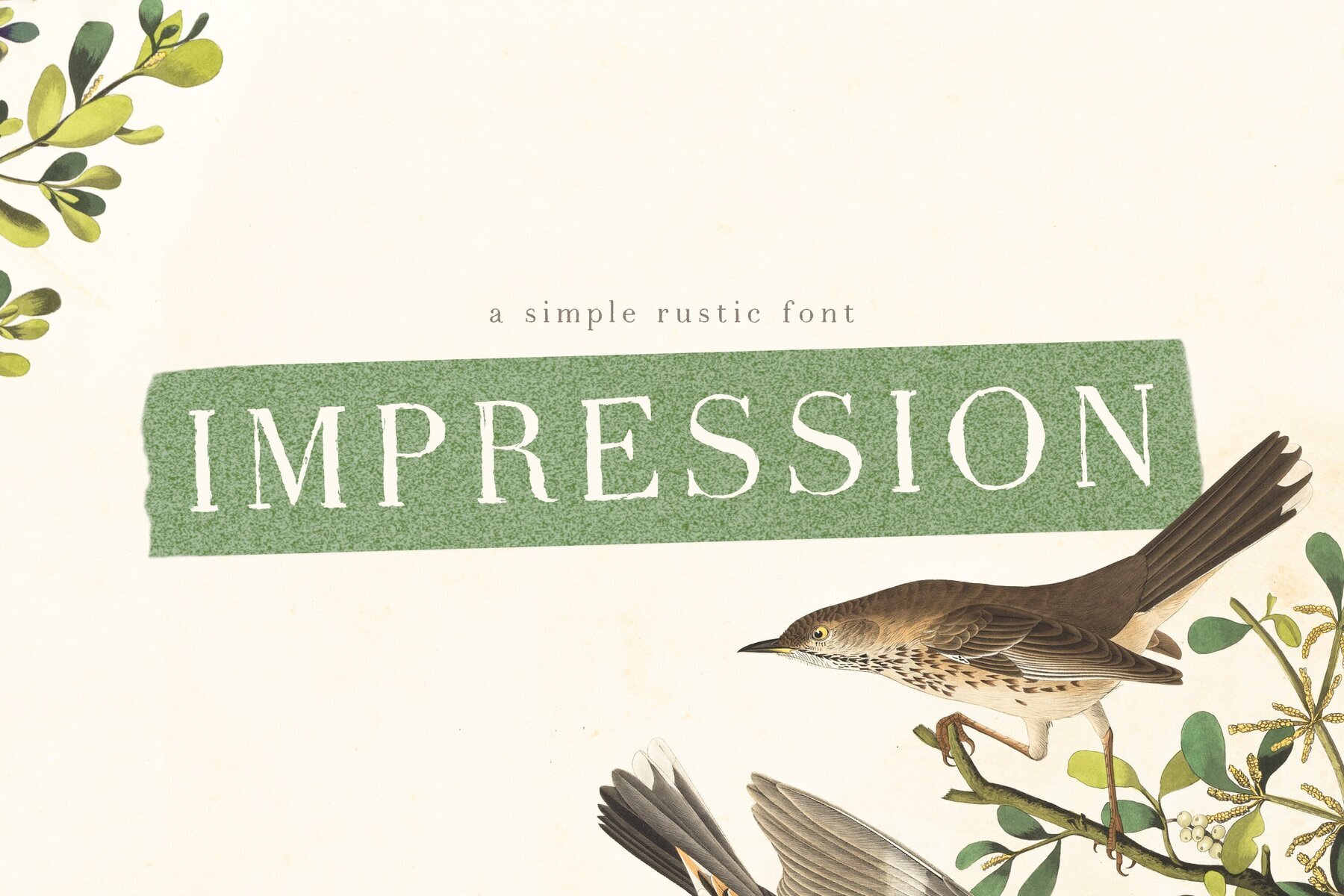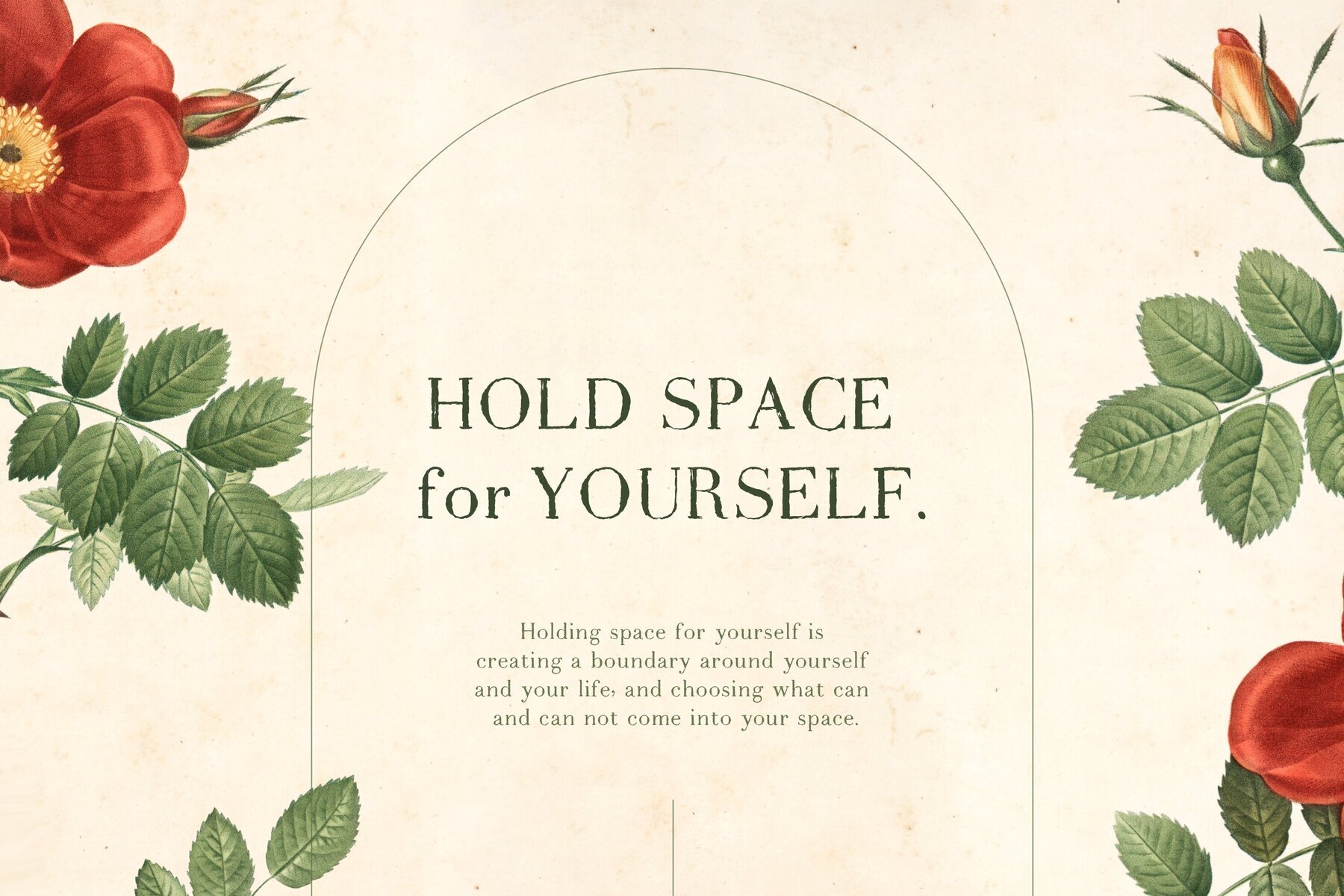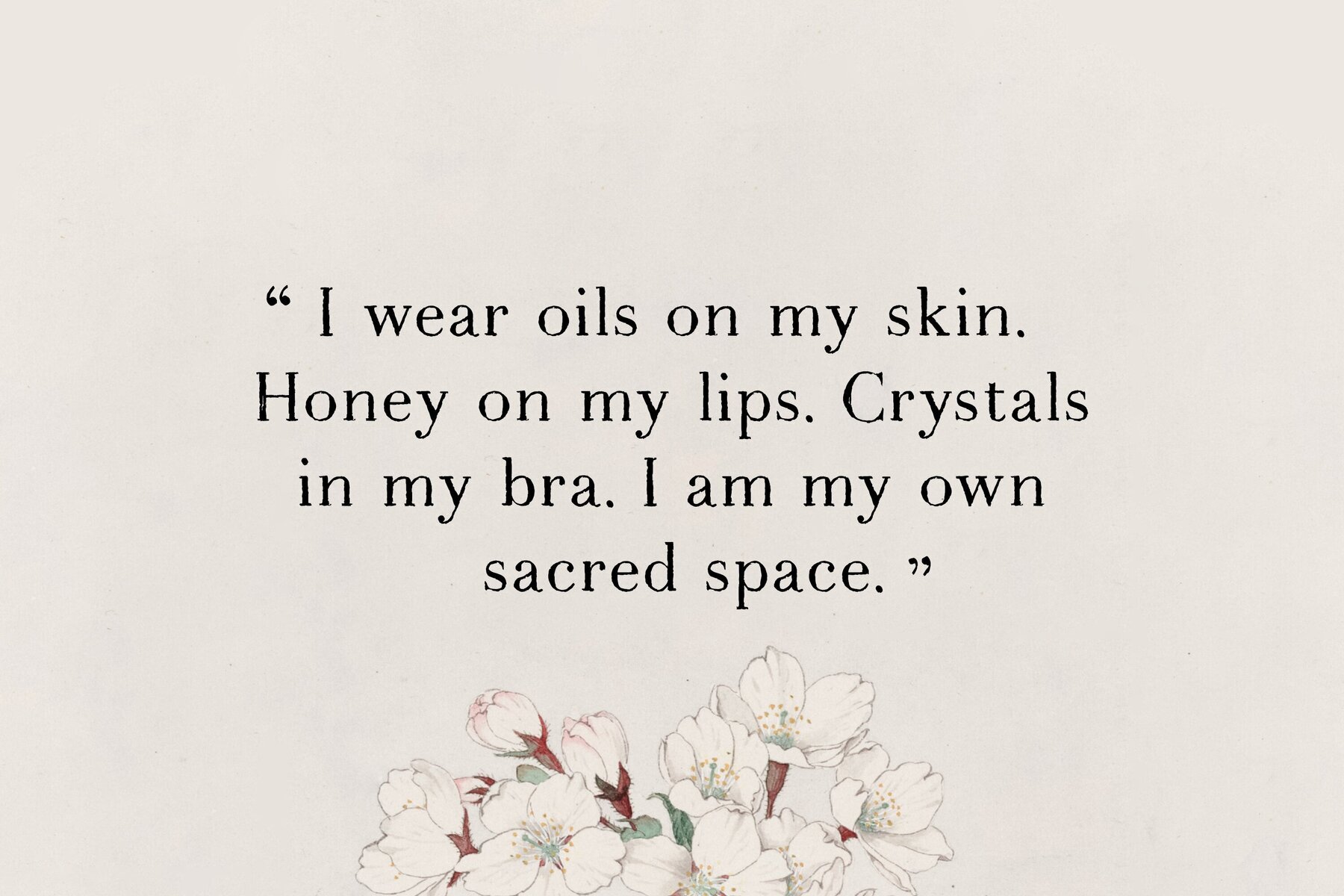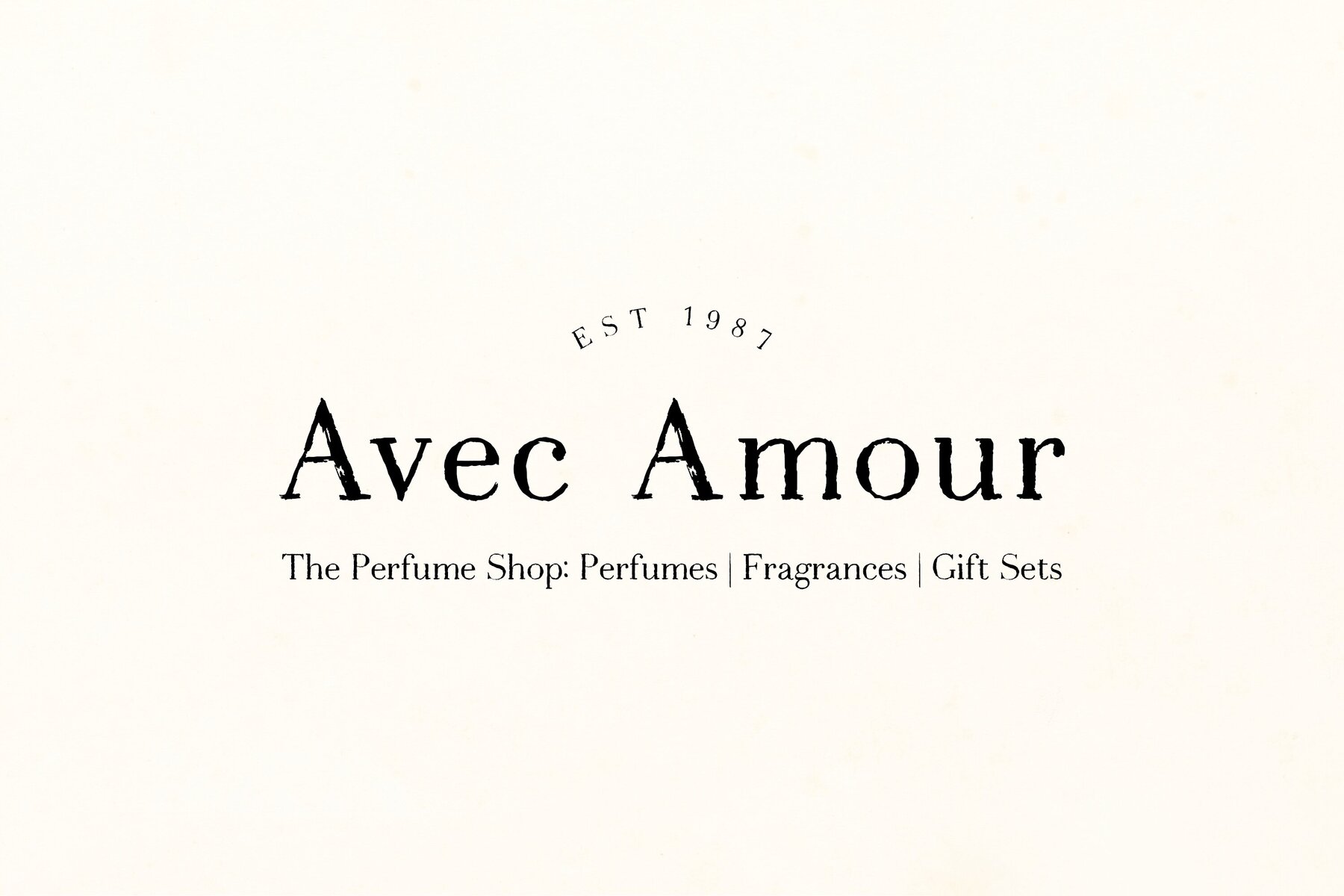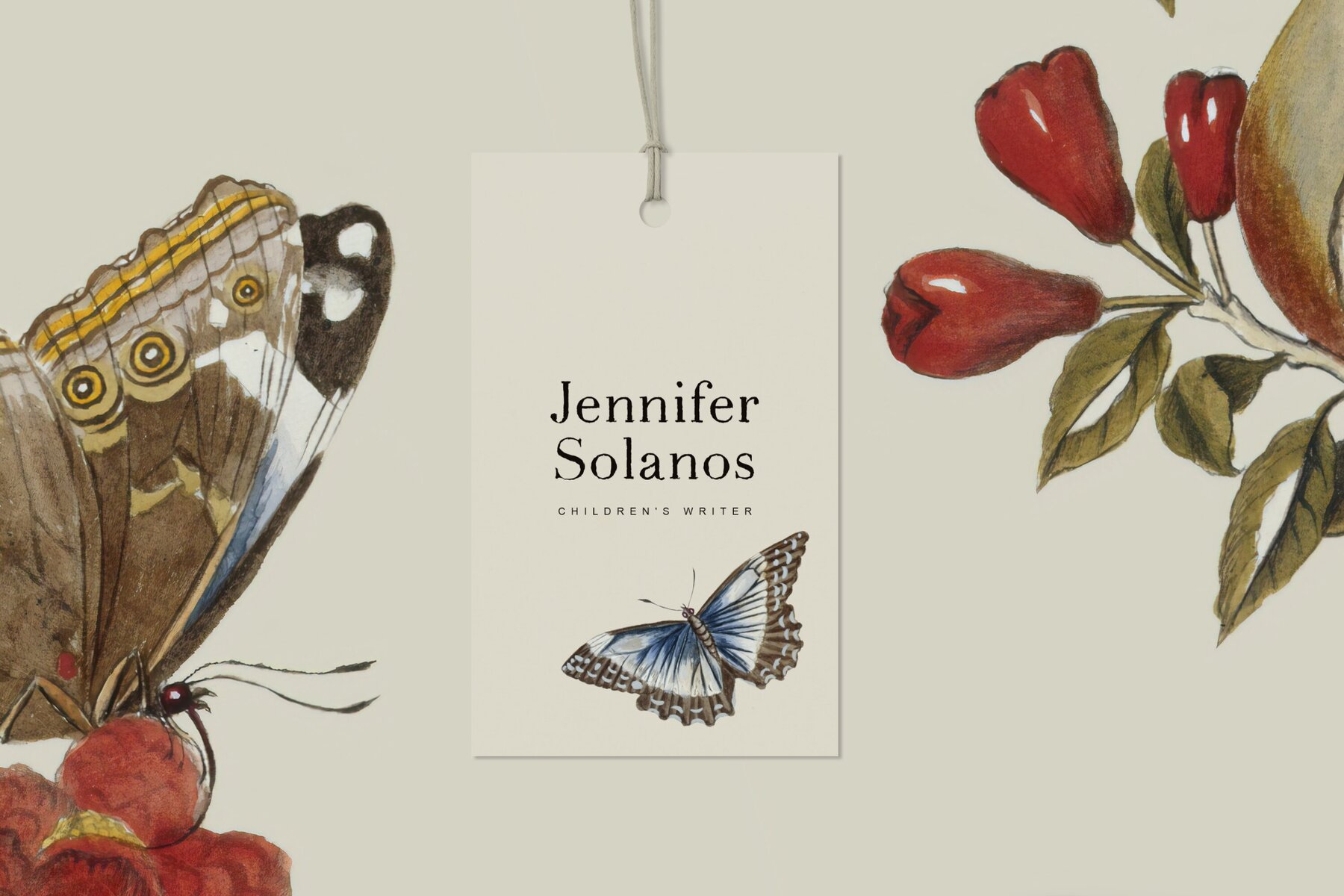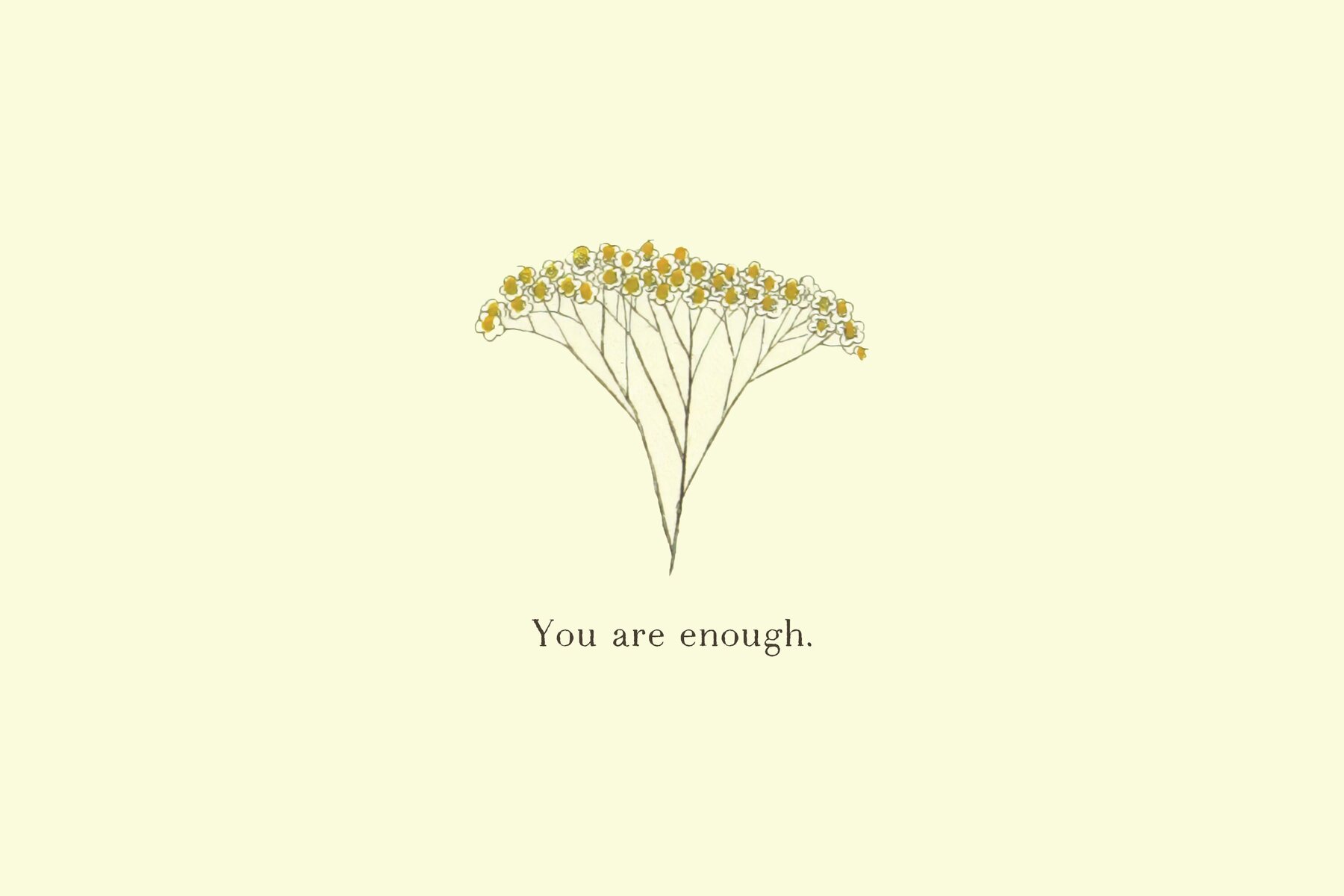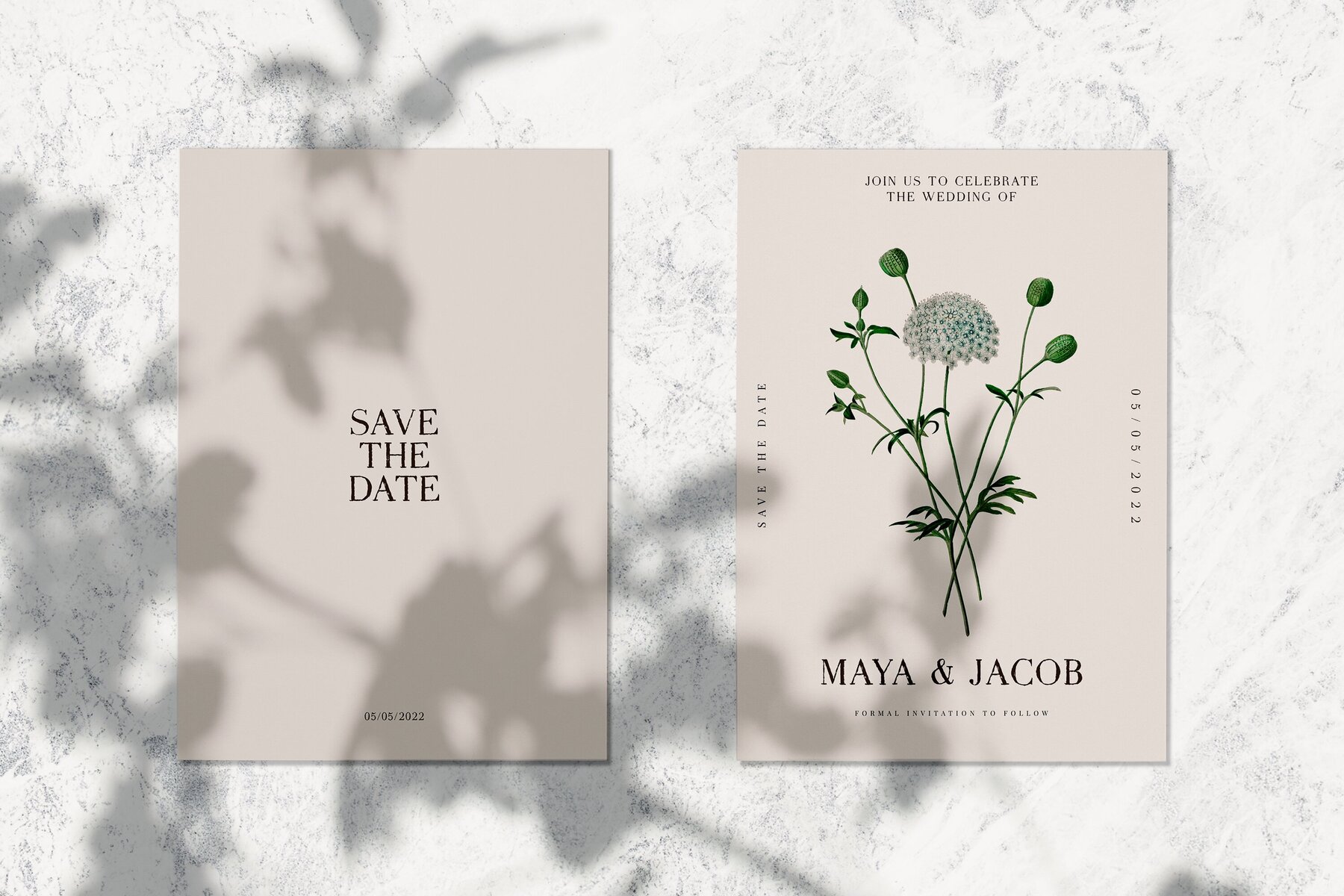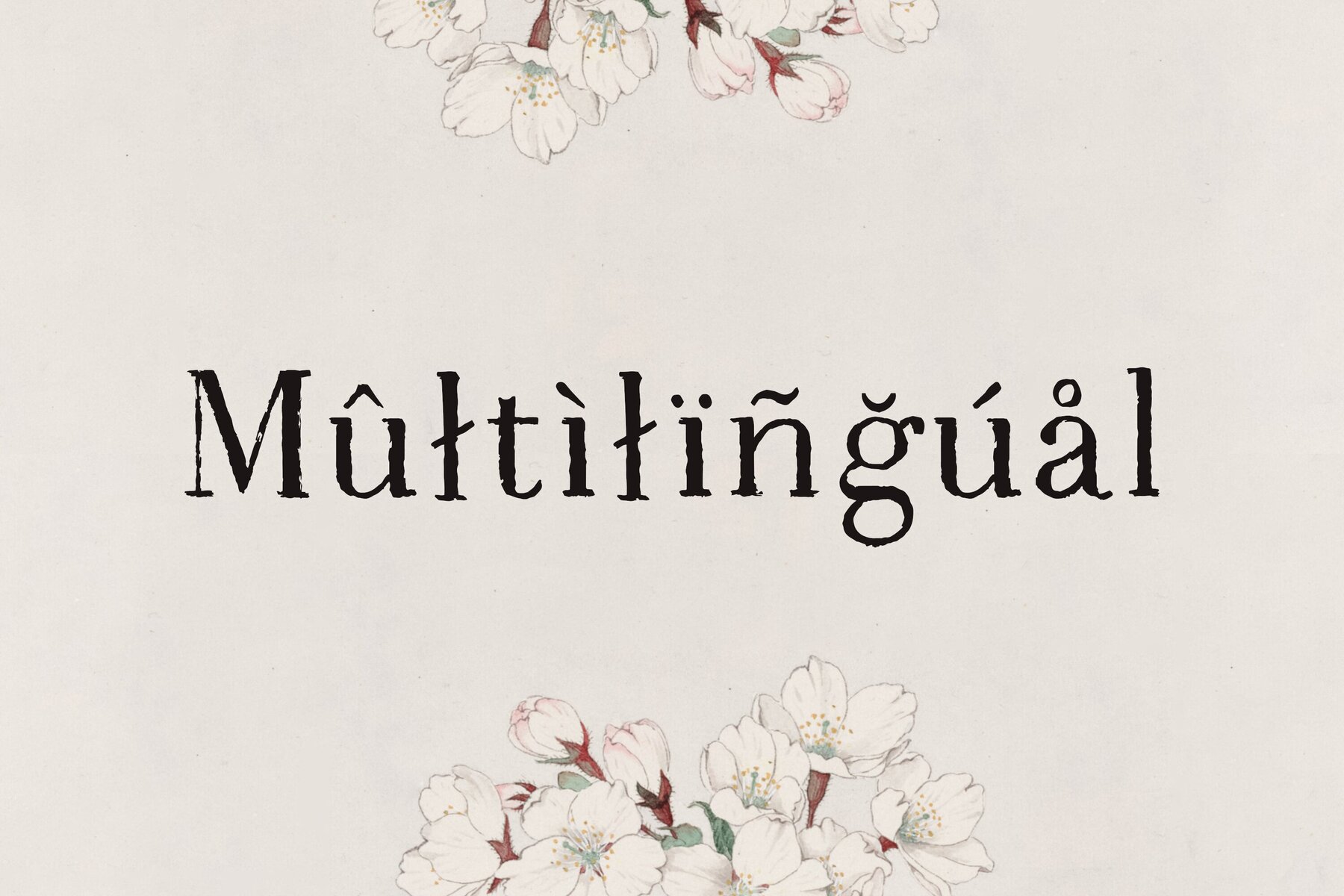
Impression Rustic Font
The Impression Rustic font by Elvinova combines simplicity with charm, making it an ideal choice for a variety of design projects.
Key Features
• Simplicity – Offers a clean and cute aesthetic.
• Character Set – Includes uppercase, lowercase letters, numbers, and punctuations.
Language Support
This font supports multiple languages, ensuring versatility across different regions. Languages supported include:
• English, German, French
• Spanish, Italian, Danish
• Finnish, Portuguese, Swedish
• Norwegian, Dutch, Indonesian
• Luxembourgish, Icelandic, Cornish
• Hungarian, Filipino, Turkish